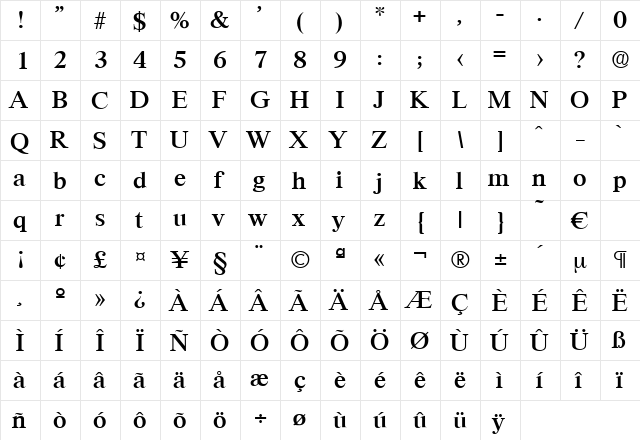
Riccione-Medium Regular Font Preview
Riccione-Medium Regular
Design Context for Riccione-Medium Typeface
Riccione-Medium offers clean, dependable letterforms without strong stylistic allegiance, making it a practical choice for designers who need flexibility.